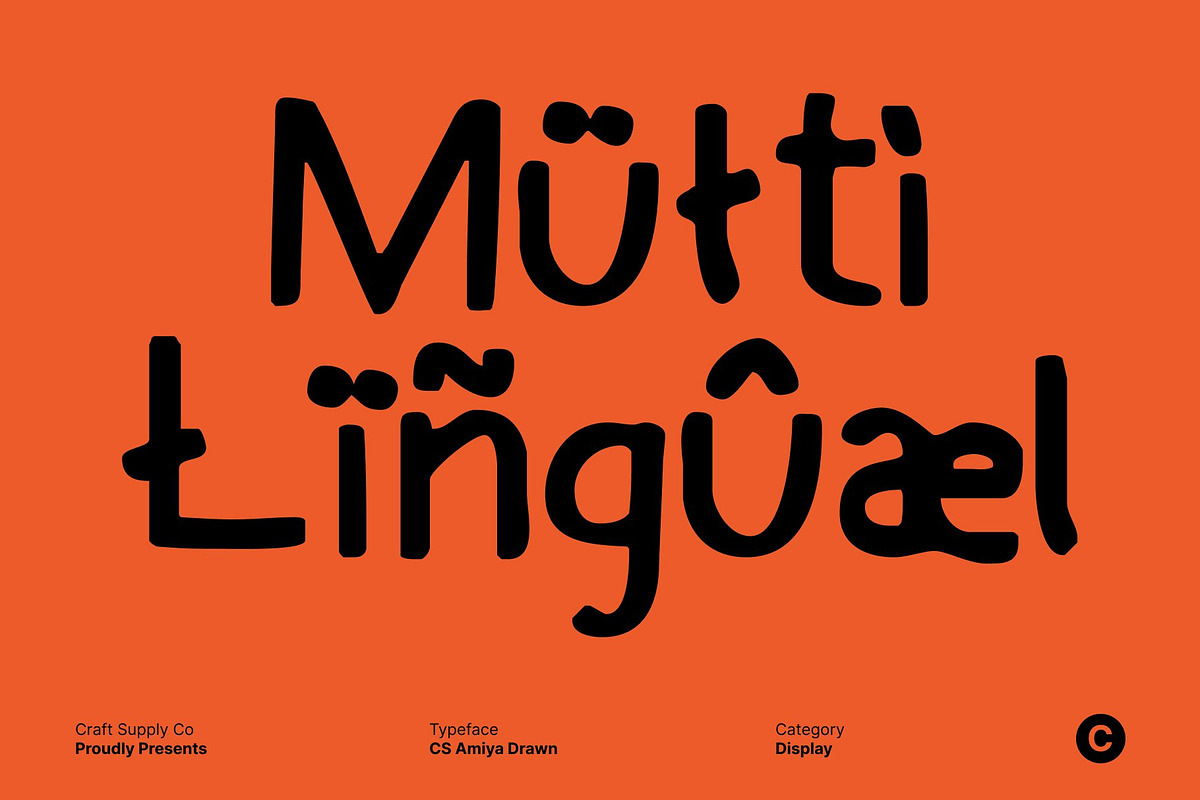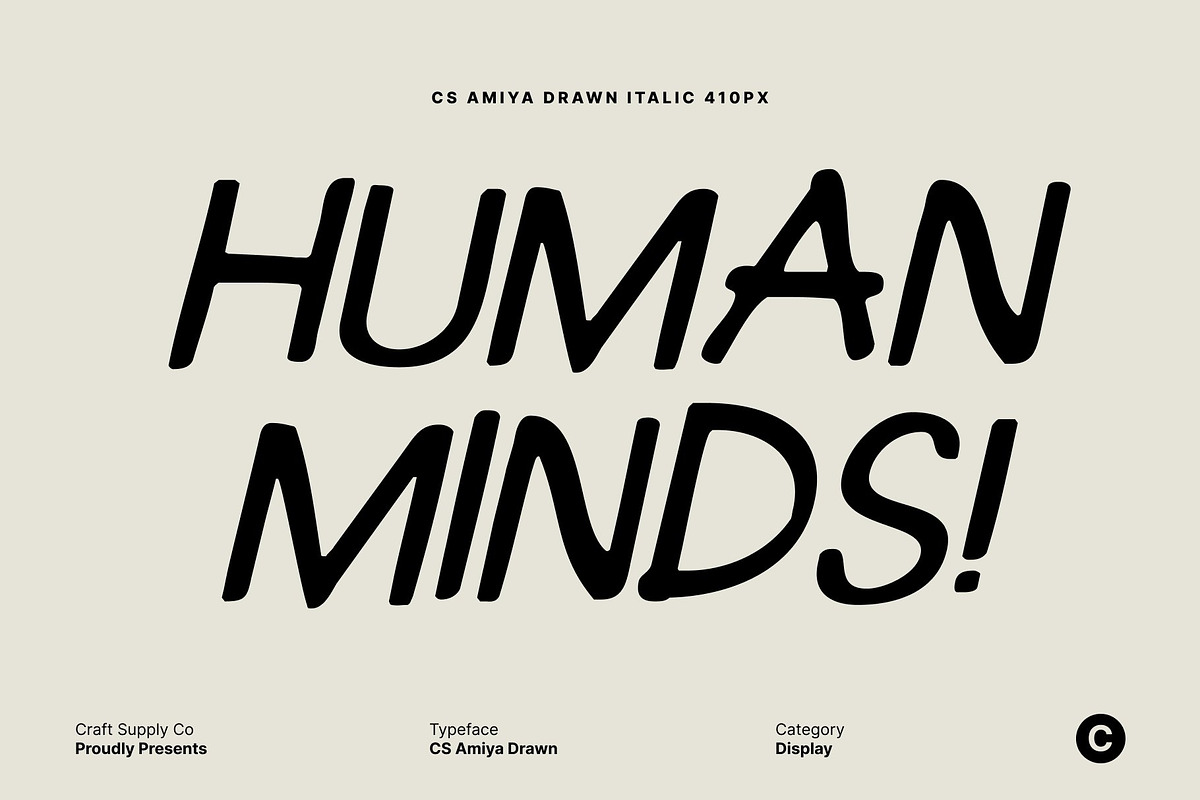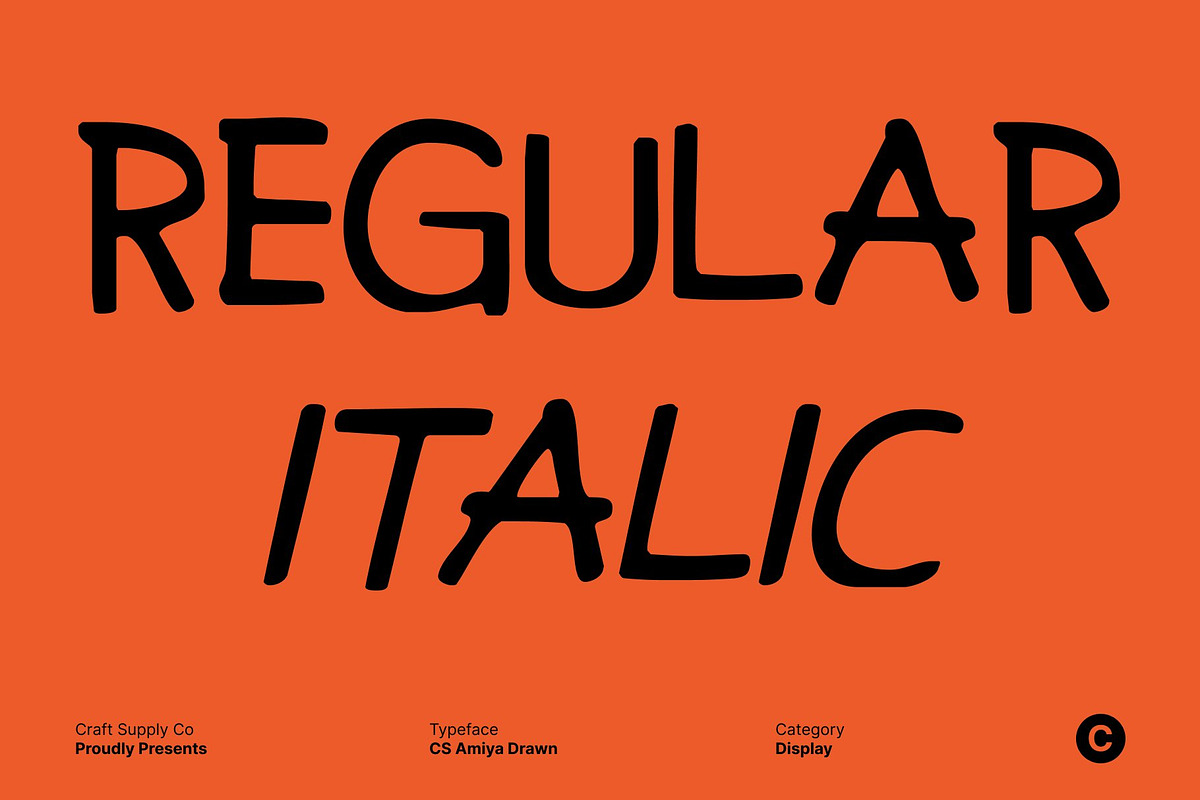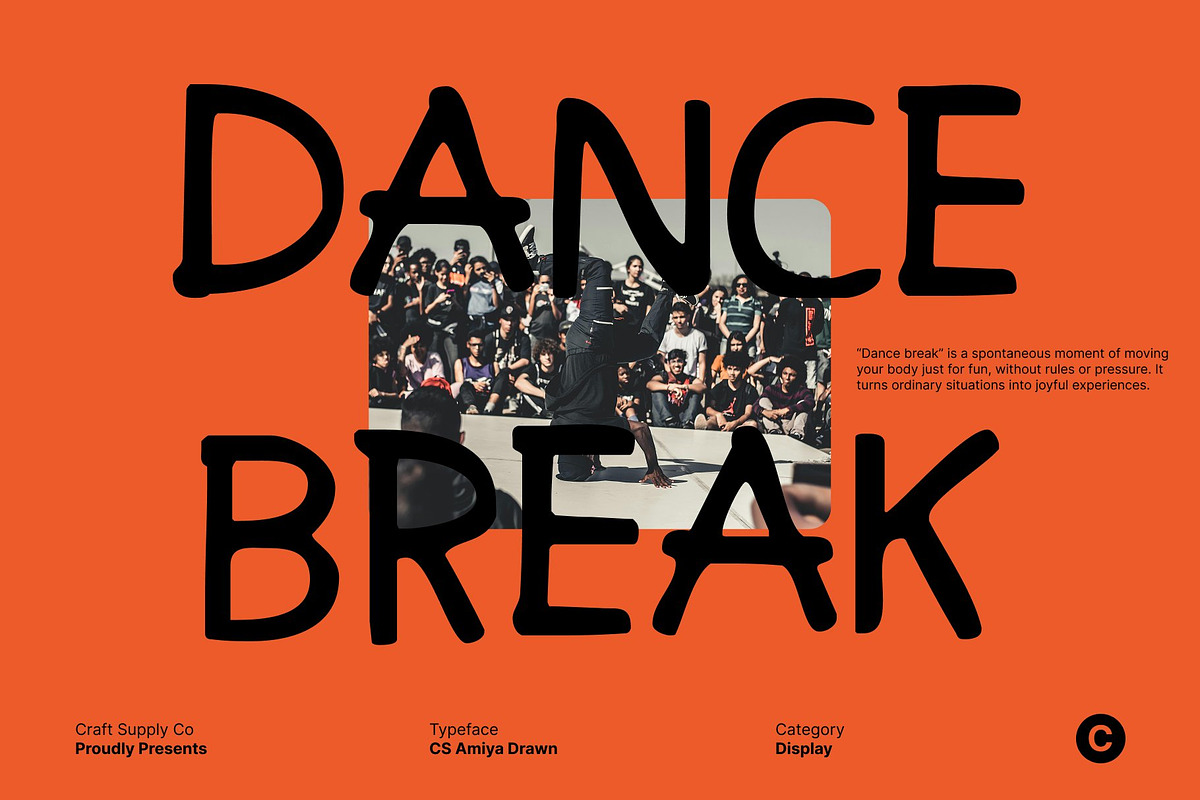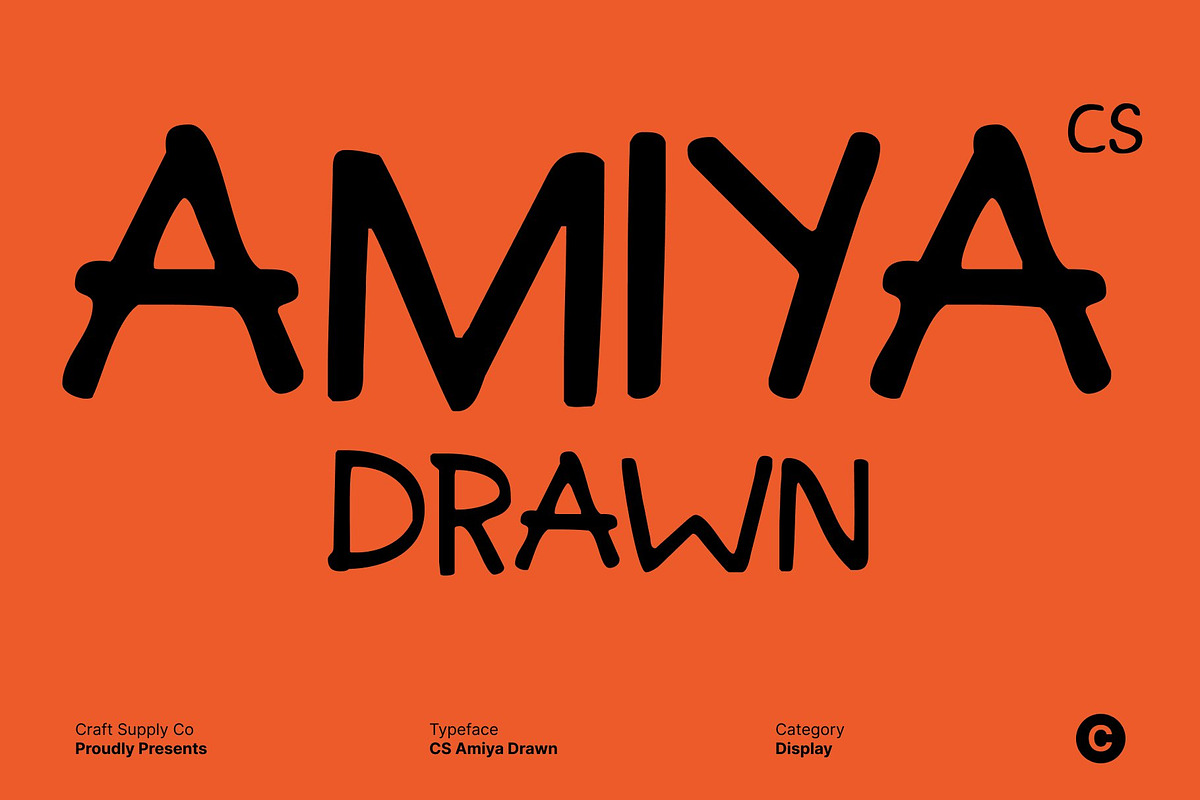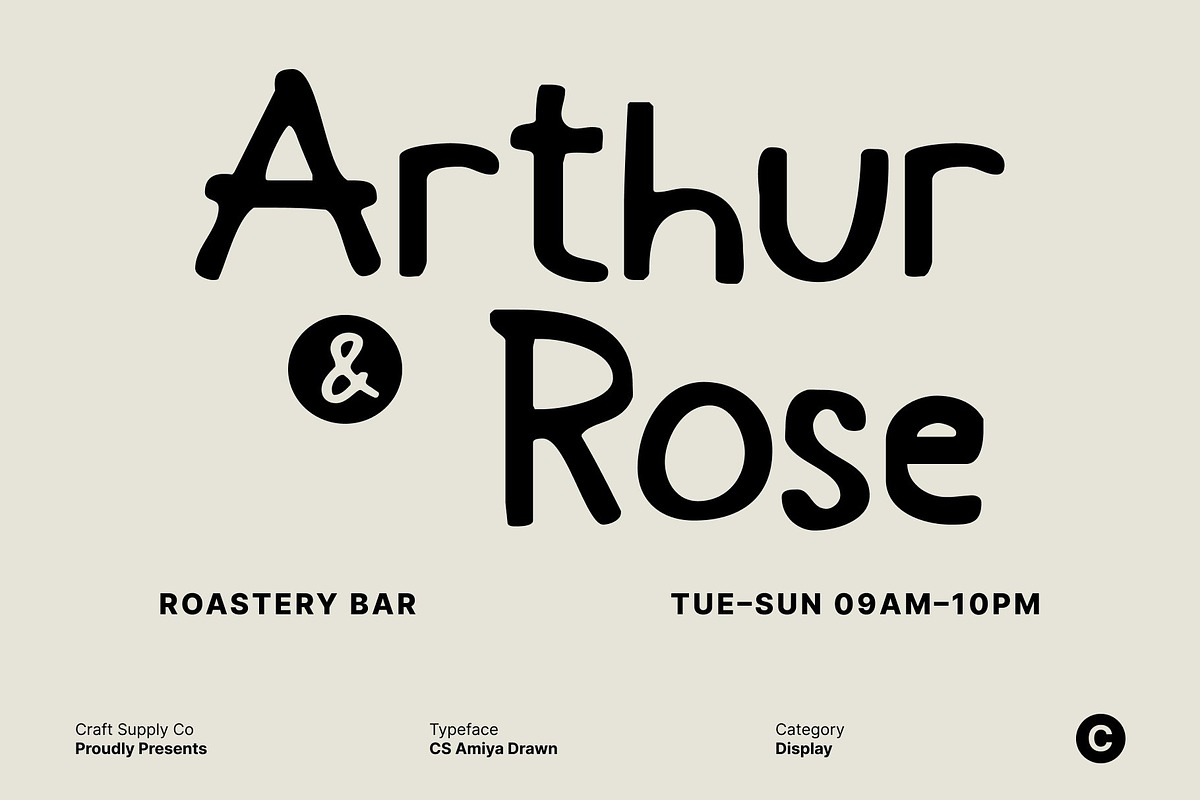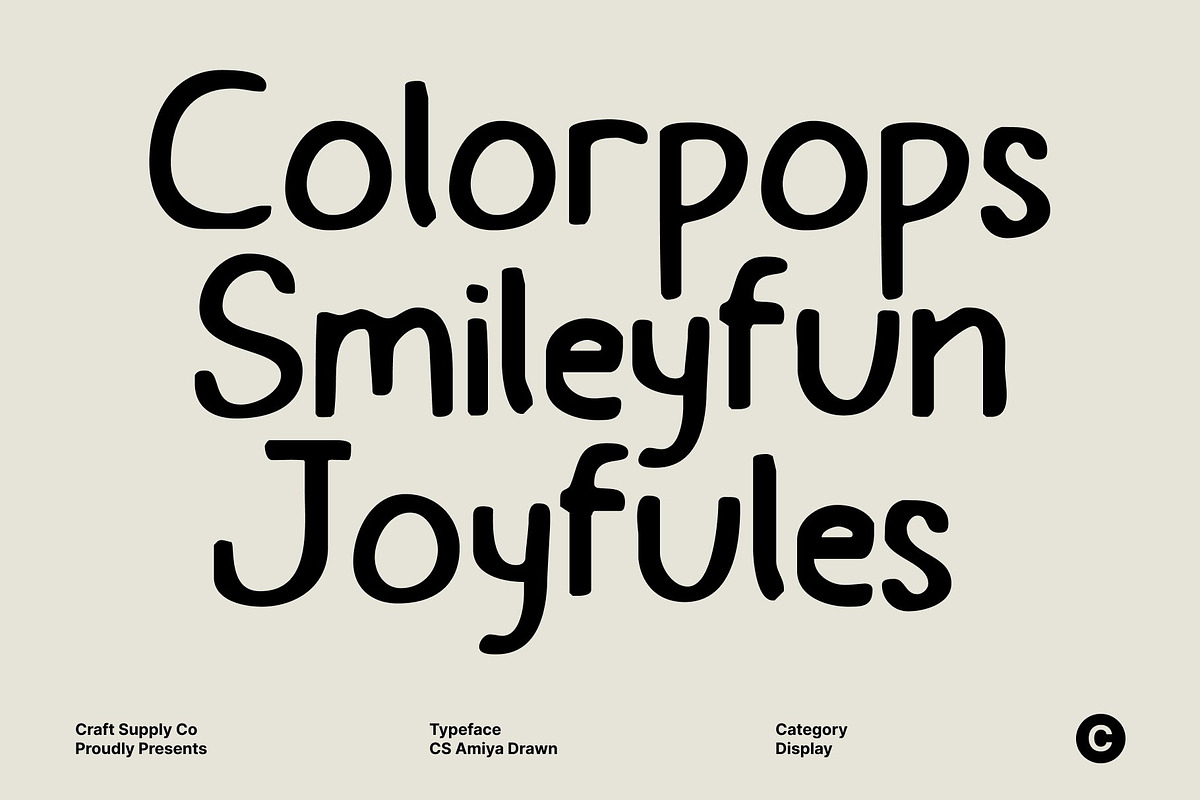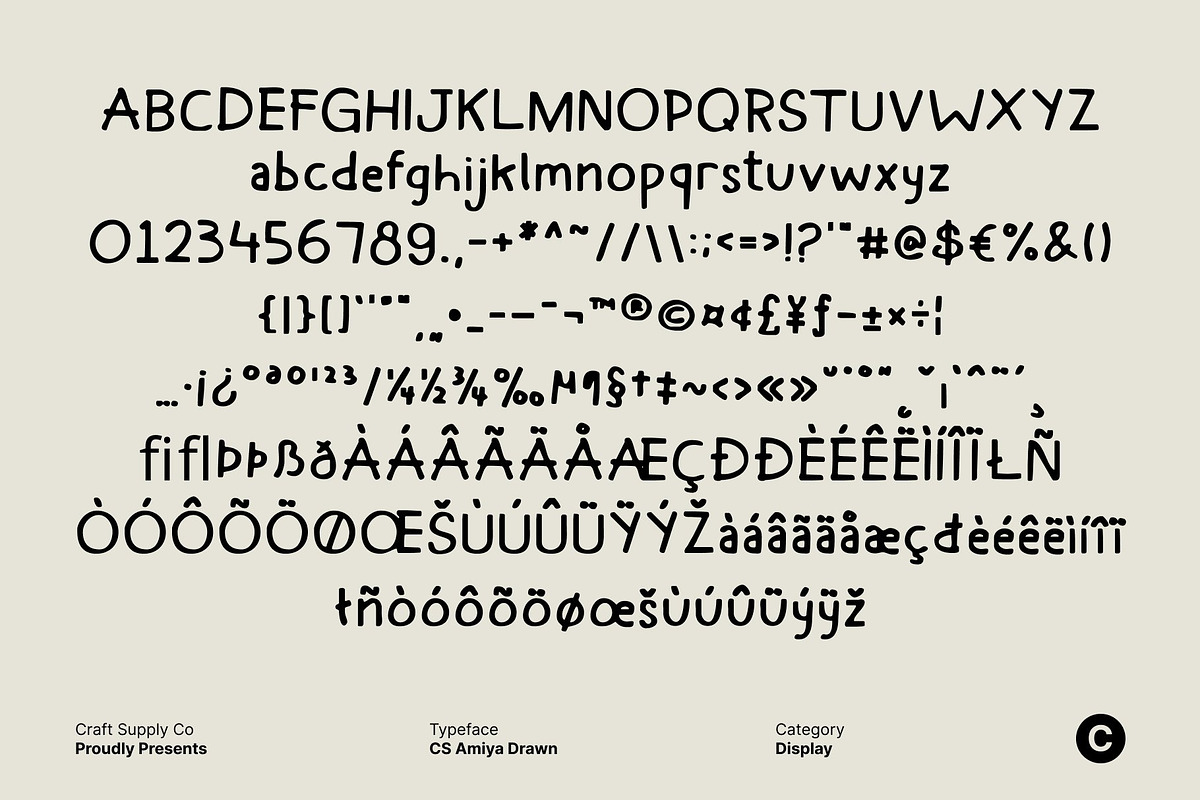
CS Amiya Drawn
CS Amiya Drawn – Expressive Handwritten Display with Geometric Charm
Handwritten Warmth Meets Geometric Style This is a handwritten-style display font that blends friendly expression with subtle geometric structure. Its letterforms feel lively and personal, while carefully balanced proportions add a sense of order and clarity. This combination creates a distinctive look that feels both playful and thoughtfully designed.
Natural Strokes for an Authentic, Personal Feel The drawn effect gives this font a natural flow that feels warm and human. Each stroke carries a handcrafted quality, adding emotion and character to the text. This organic texture makes your designs feel approachable and expressive, helping messages connect more naturally with the audience.
Geometric Influence for a Modern Edge Alongside its handwritten charm, this font features gentle geometric influences that keep the font clean and contemporary. These structured elements enhance readability and visual balance, making the font suitable for modern layouts without losing its friendly personality.
Perfect for Branding, Posters, and Creative Editorials This font works beautifully for branding, posters, packaging, and playful editorial layouts. It’s an excellent choice for logos, titles, lifestyle designs, and social media graphics that need warmth, creativity, and a modern touch bringing personality and charm to every project.